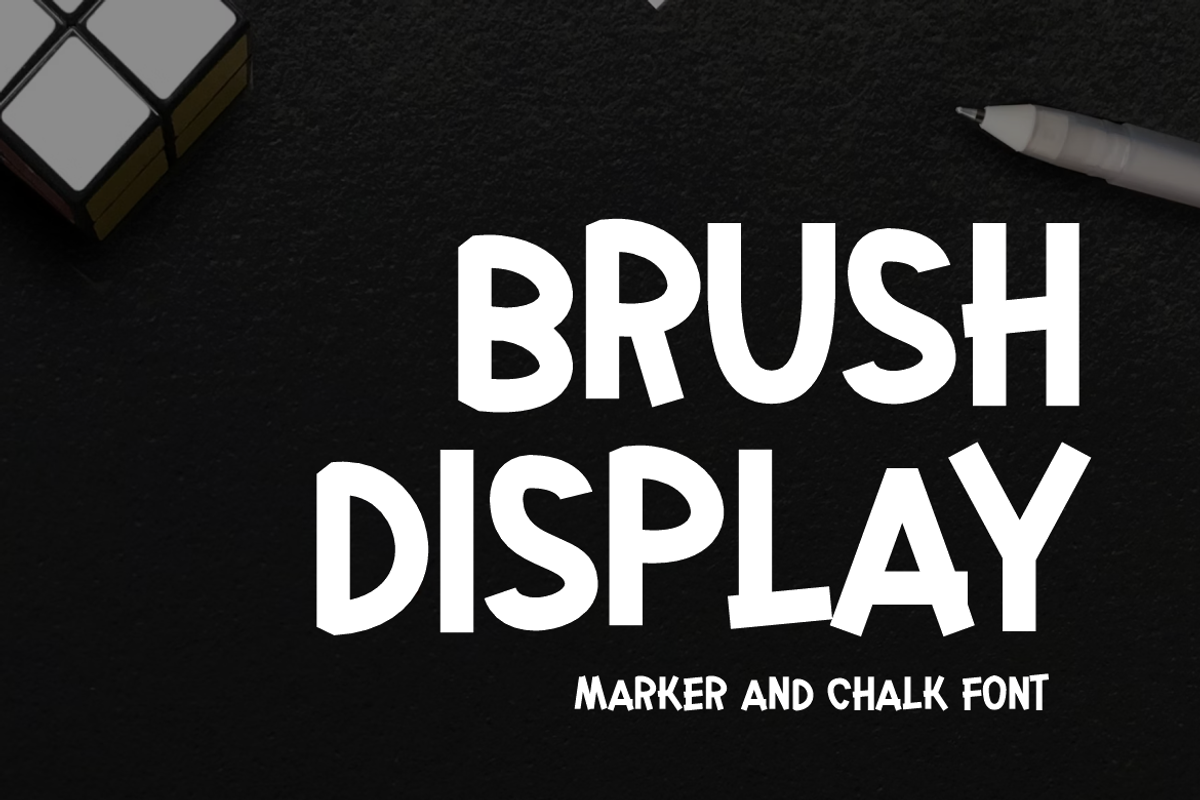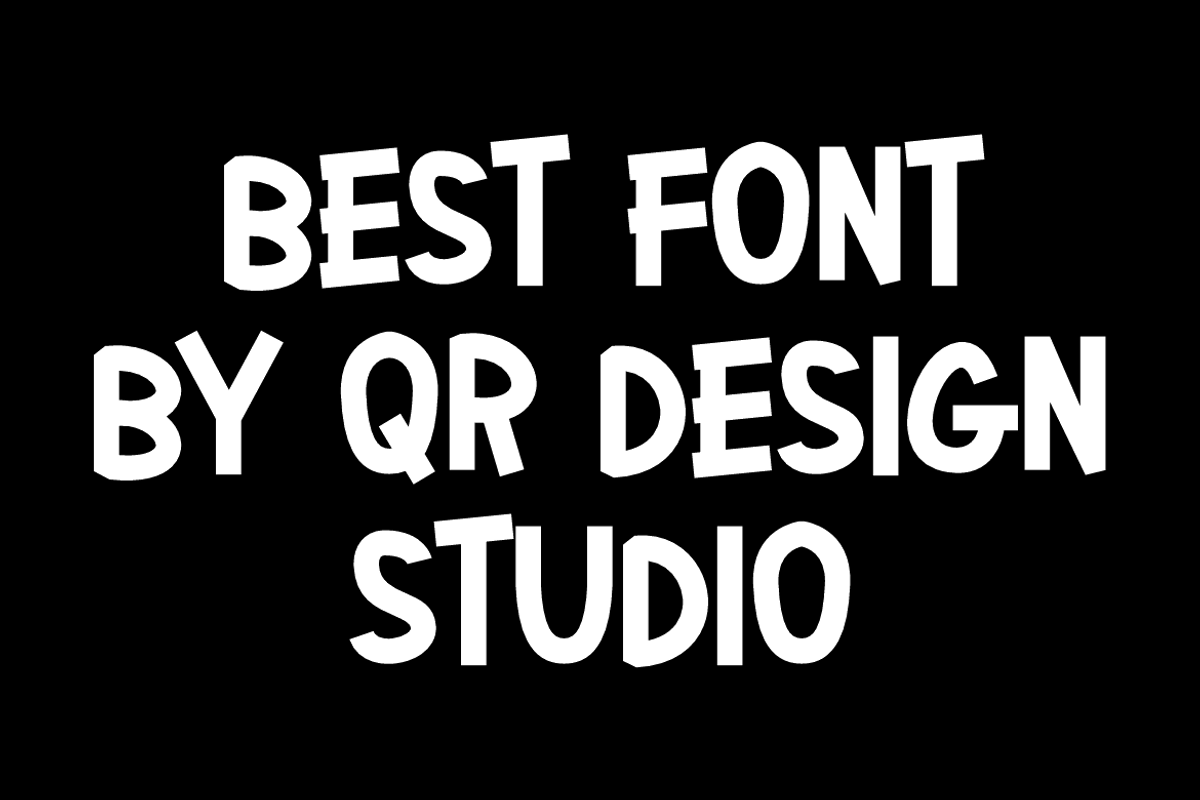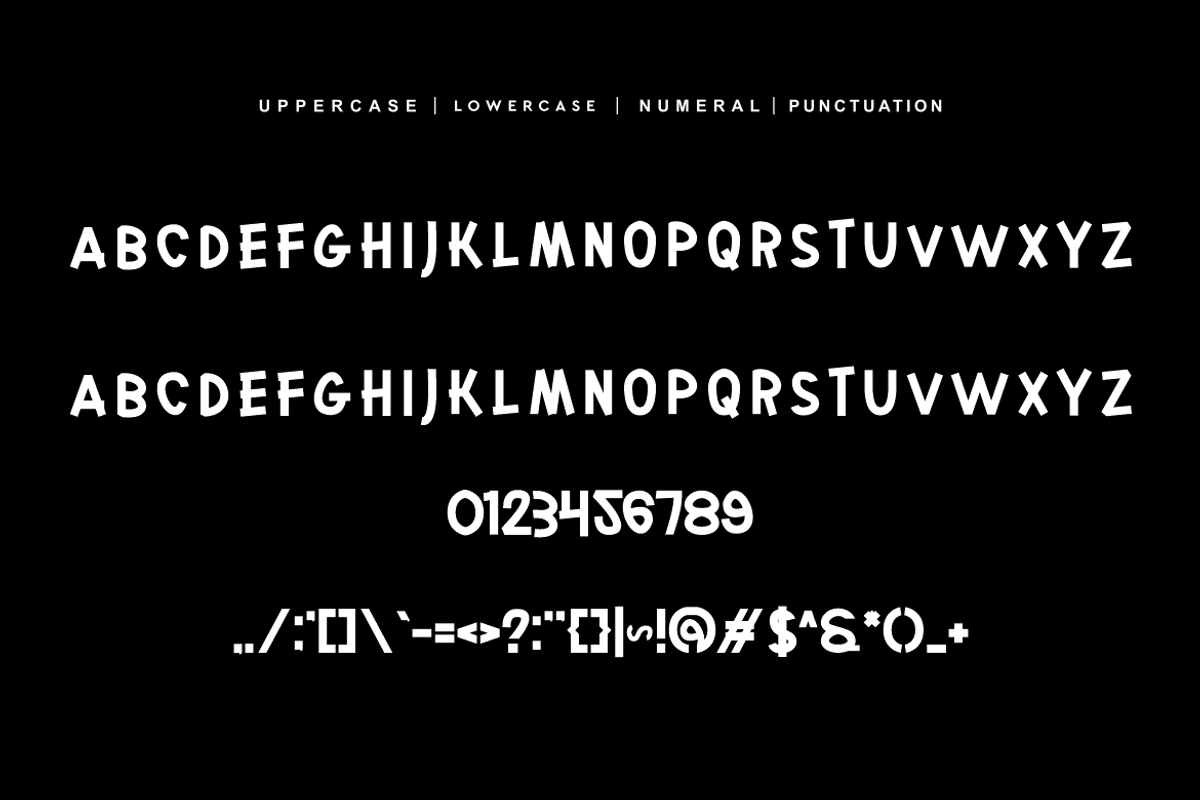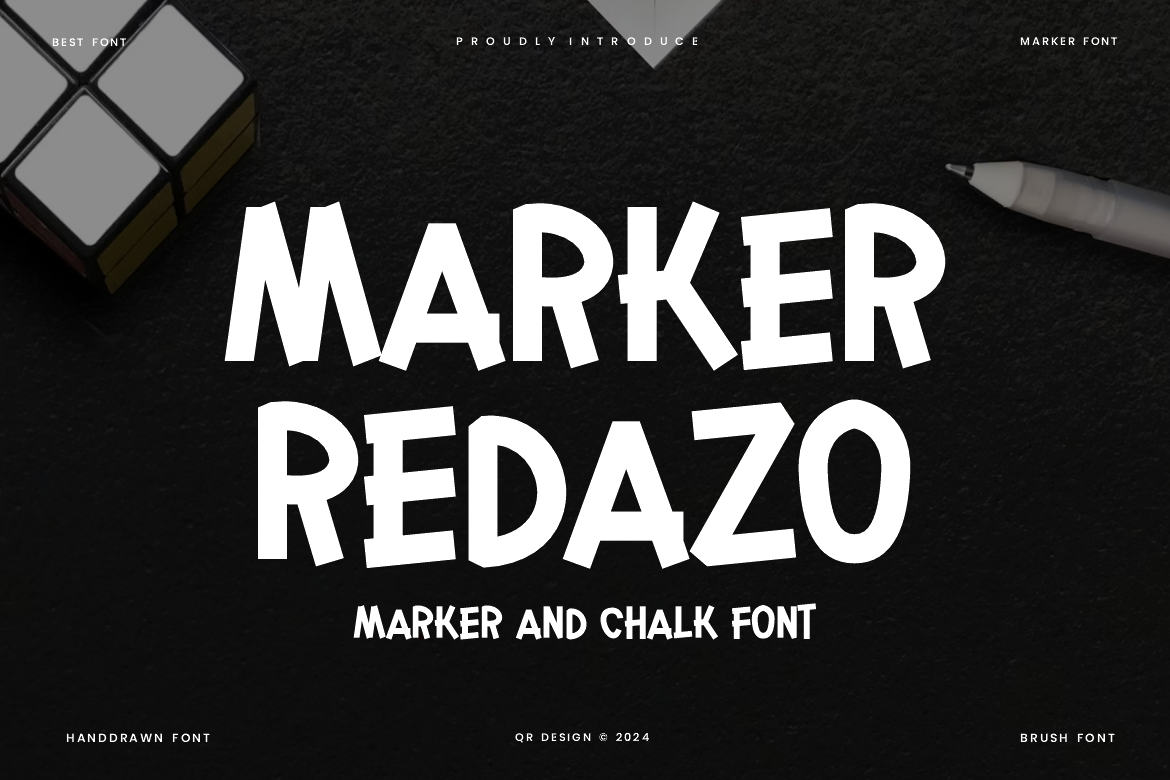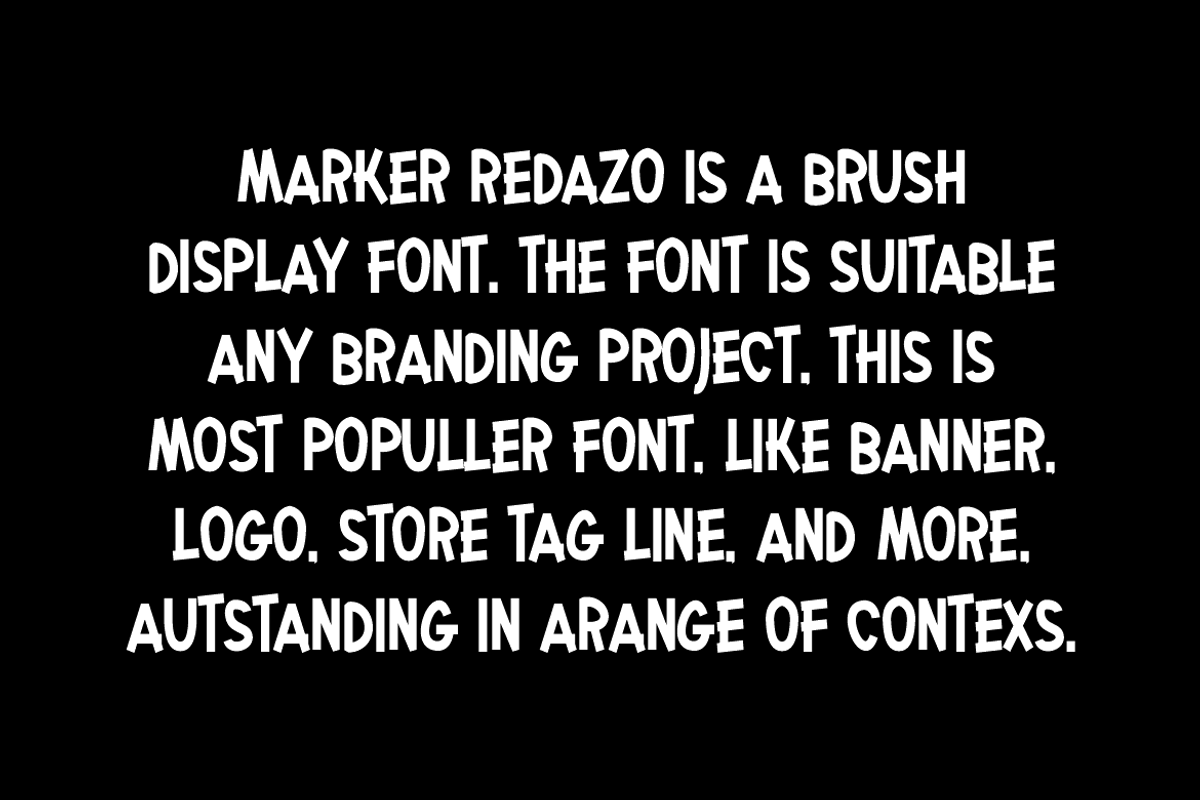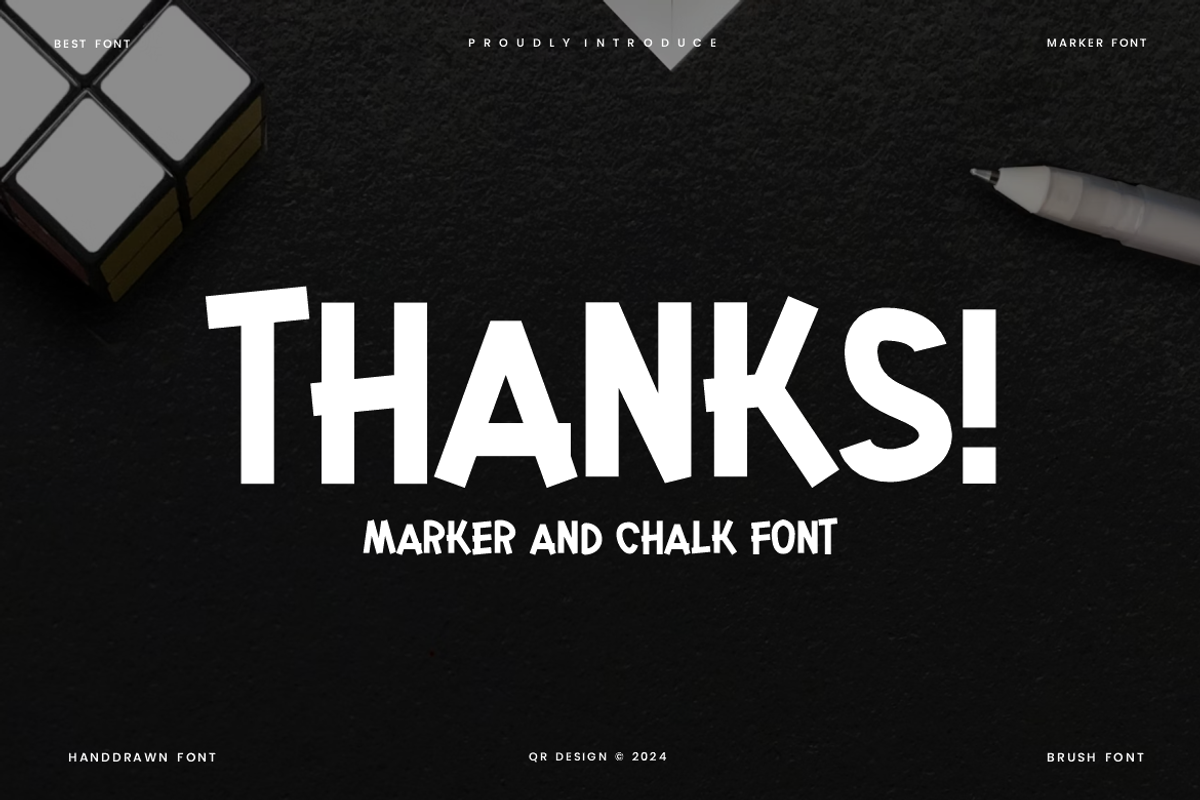
Marker Redazo - Chalk Font
Marker Redazo Font is a handdrawn and authentic display font. The font is suitable for any branding project like poster, logo, sport, and many more. Outstanding in a wide range of contexts.